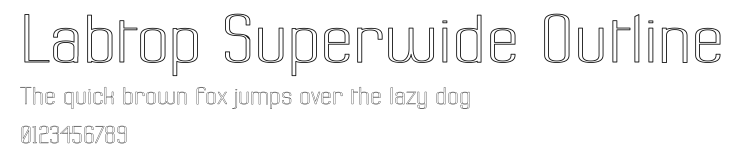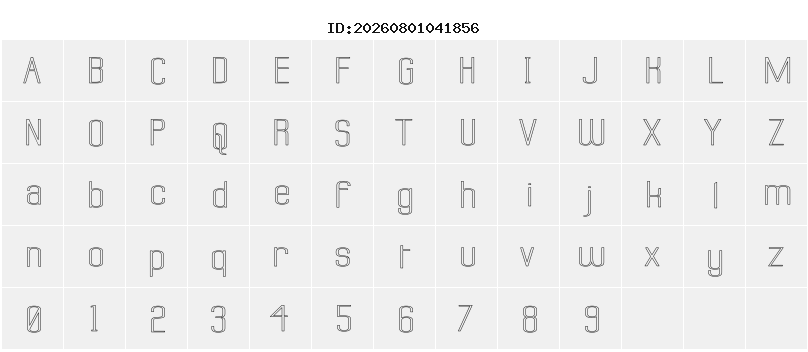
• Font Name: Labtop Superwide Outline
About Labtop Superwide Outline.ttf
Labtop Superwide Outline.ttf is a modern, elegant sans-serif font designed for ultimate readability and visual harmony. Perfect for branding, headlines, web design, and print materials.